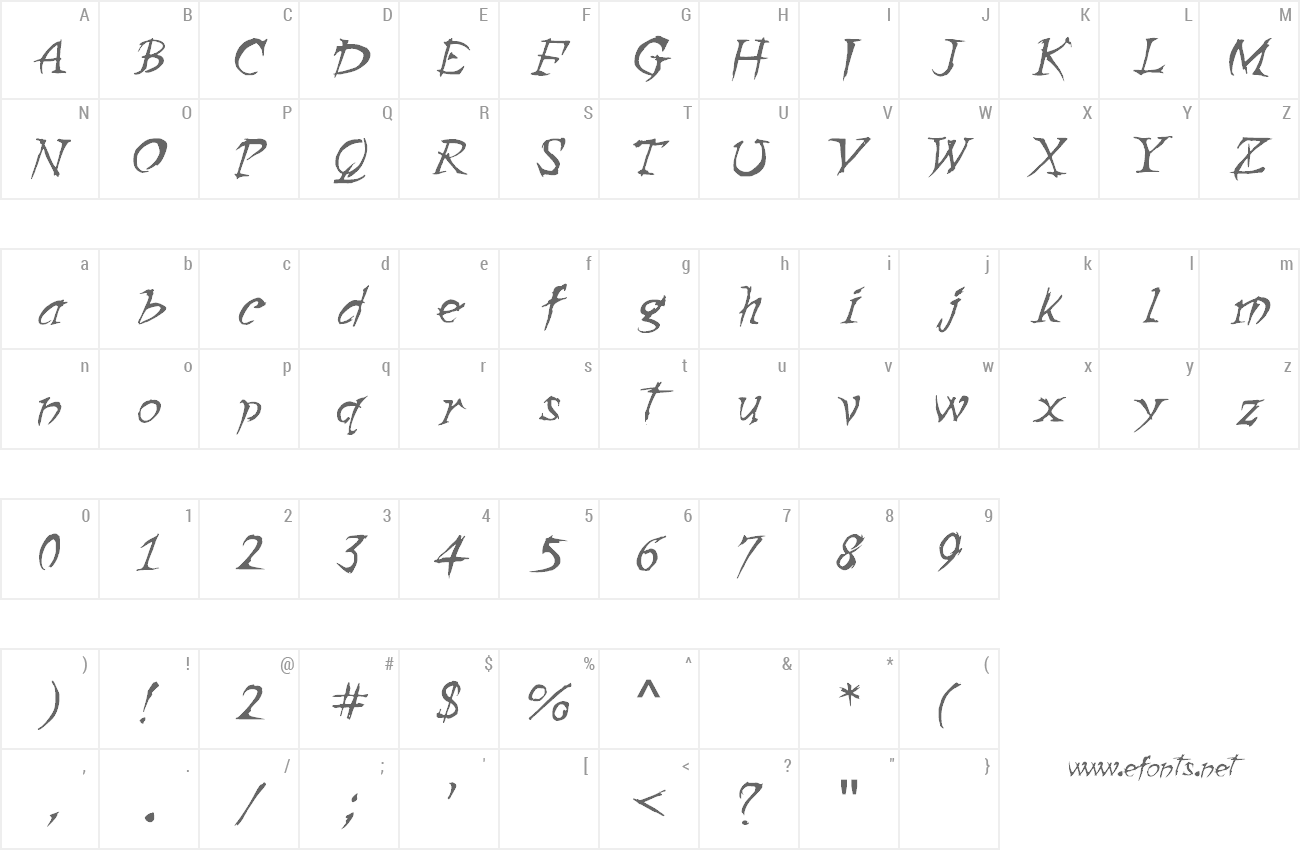
| Font name: | Zombie Girlfriend |
| Author: | Tobias Weinald |
| Note by Tobias Weinald | |
This was merely a test of my new font-creating software. Drew it by hand, scanned it, then did the finetuning. Free for personal use, though it would be nice to get a note about the things you do with it. I have a blog, a facebook page and a deviantart account, so I would write about it, which gives me a subject and you some promotion: info@zeichenblick.de www.facebook.com/TobiasWeinald www.tweinald.deviantart.com/gallery/ |